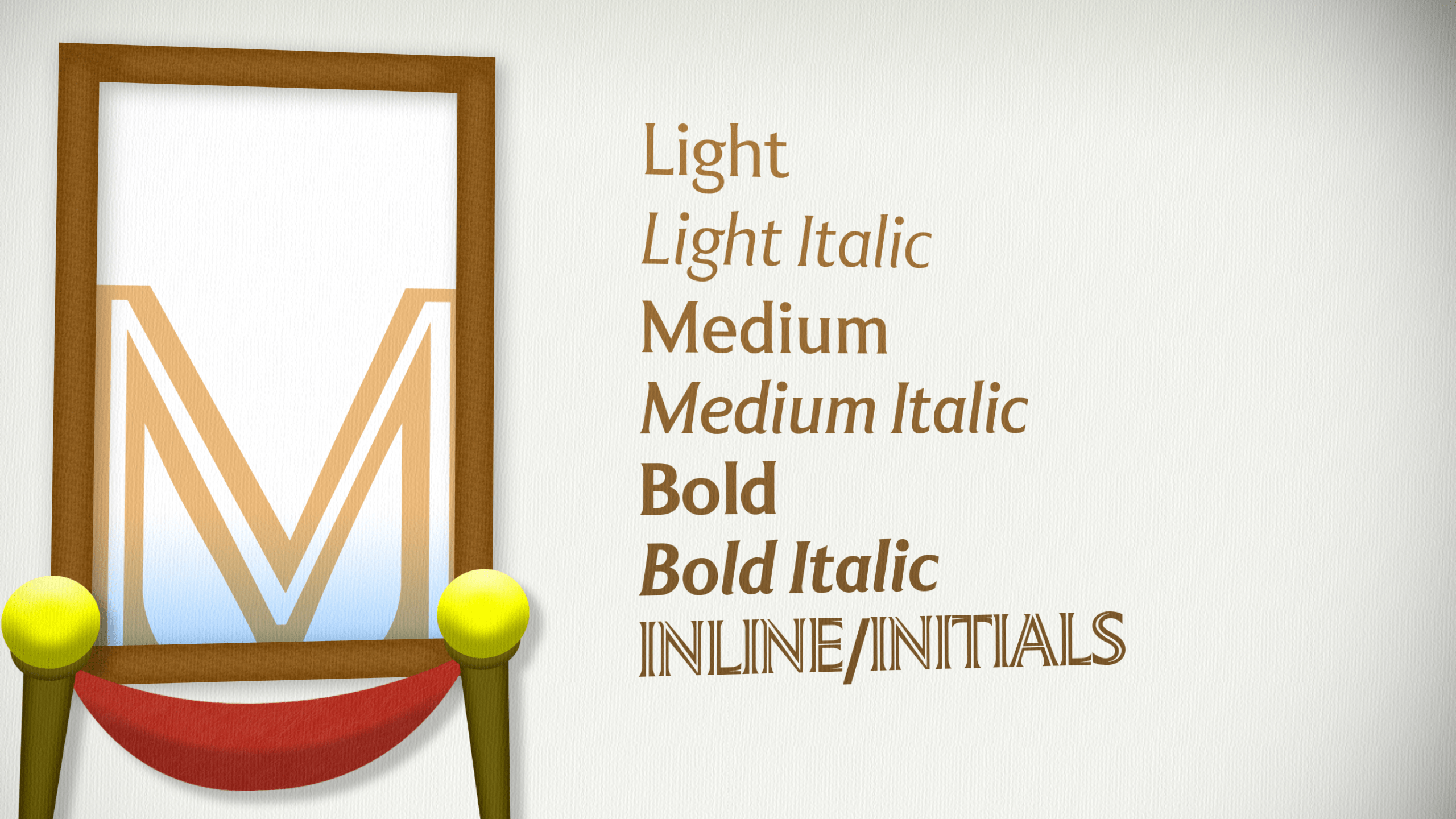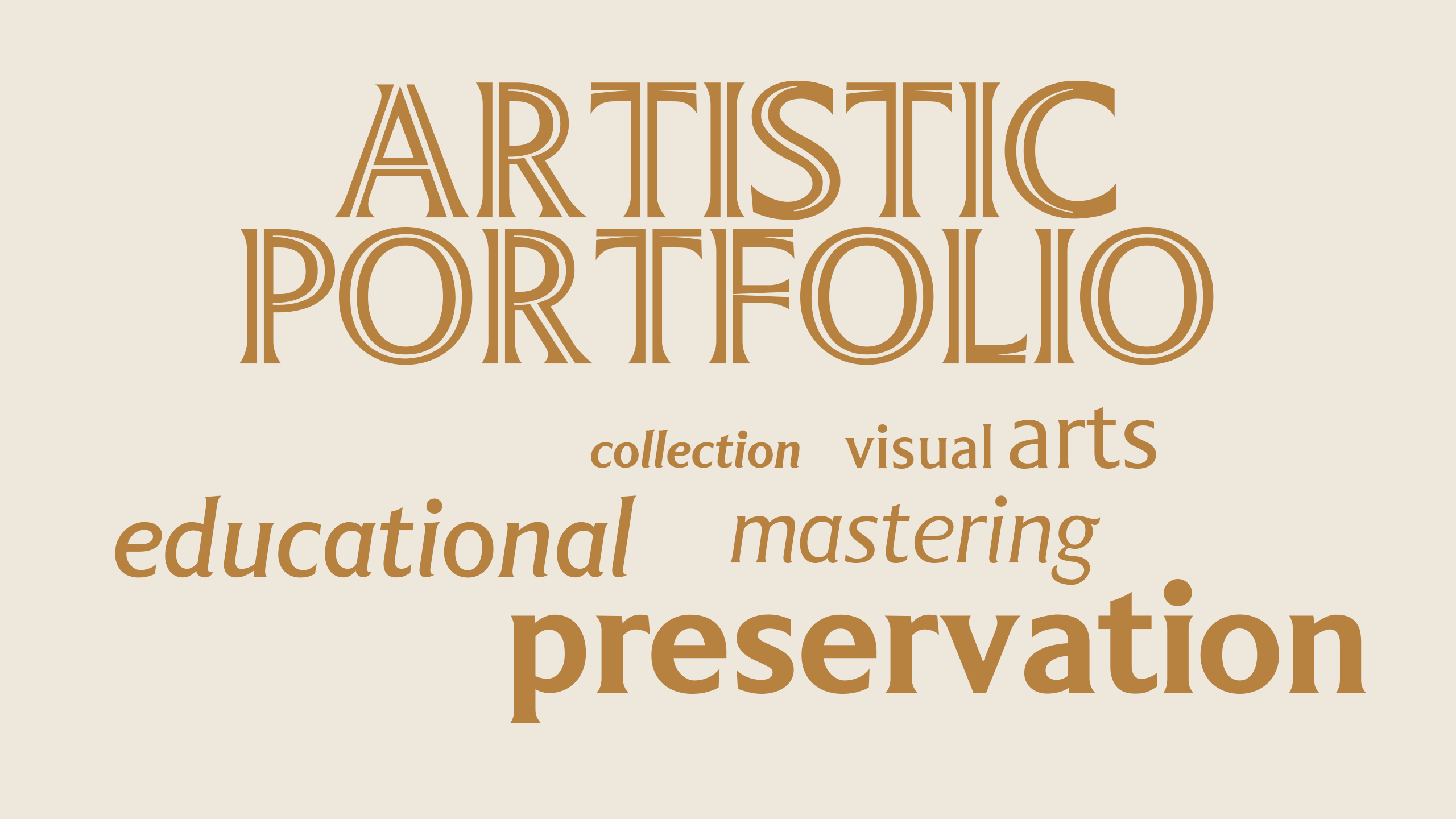
LT Museum Font
LT Museum Serif Font
It’s a free condensed serif font that will immediately take you into adventure vibes.
This font will be the ideal choice for any movie, game, and pirate-themed design you wish to develop